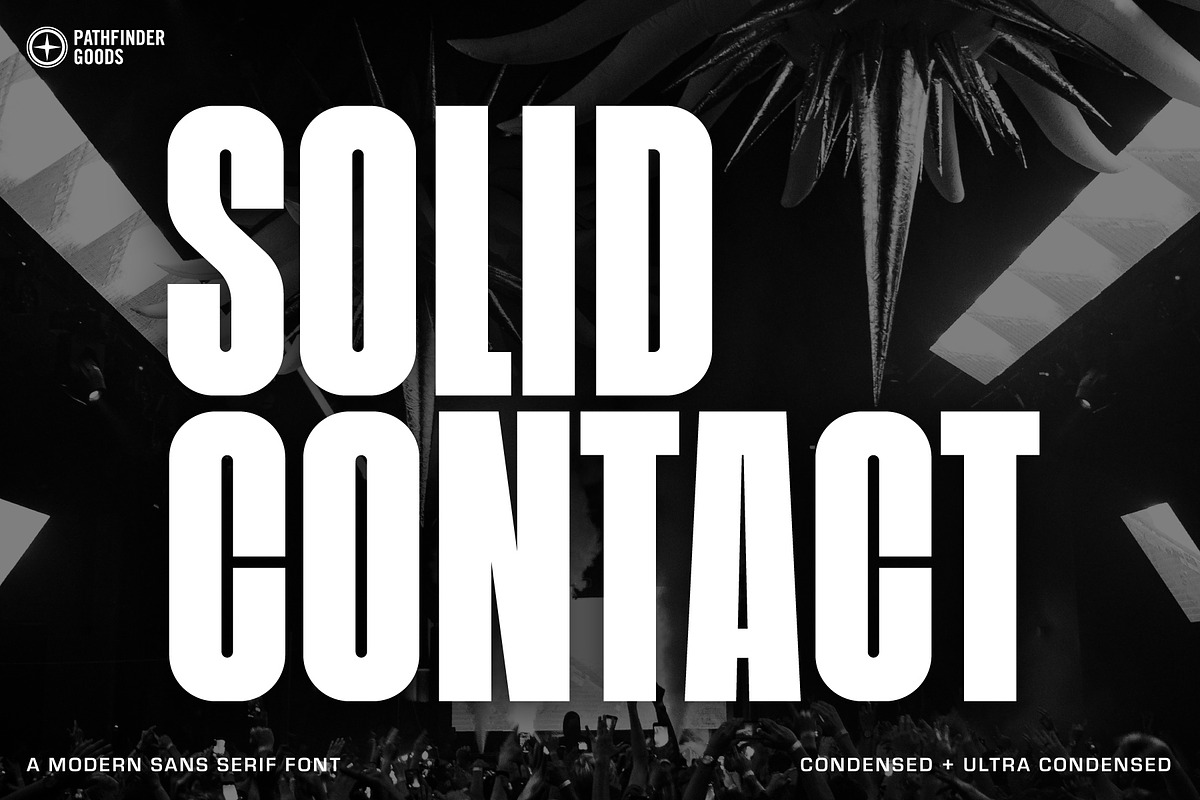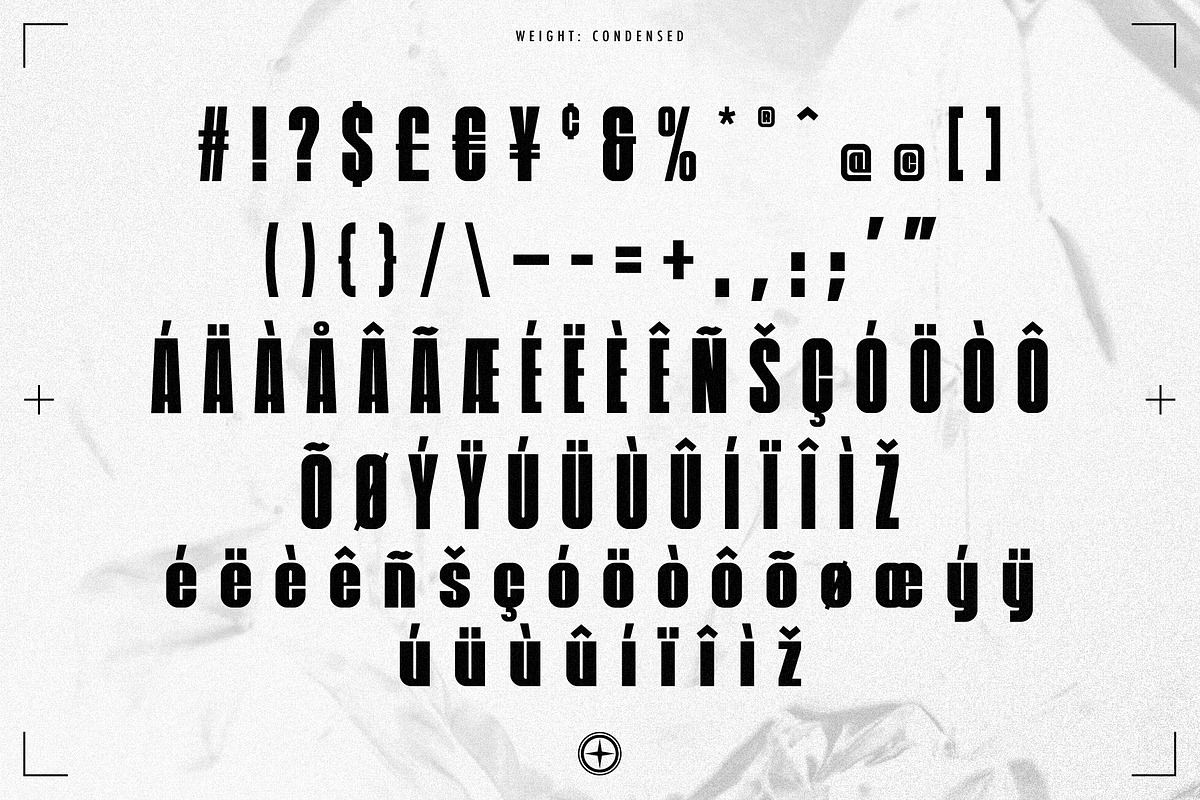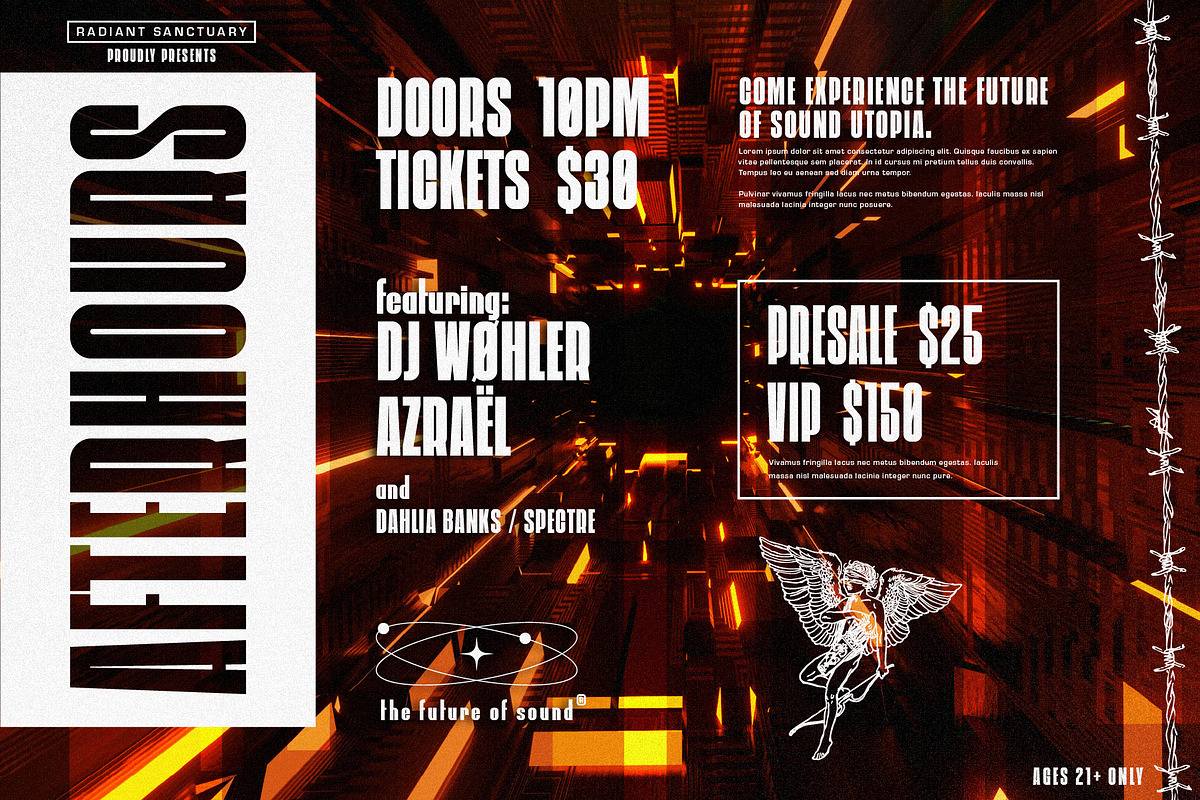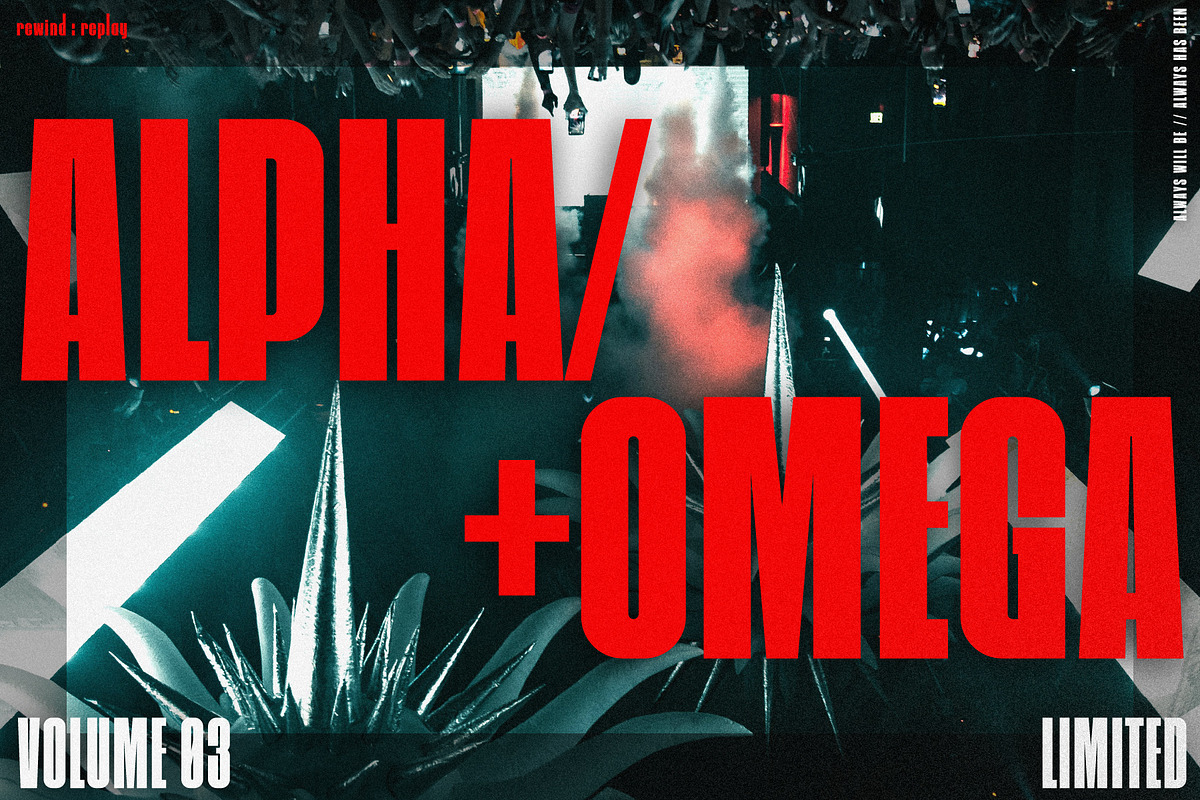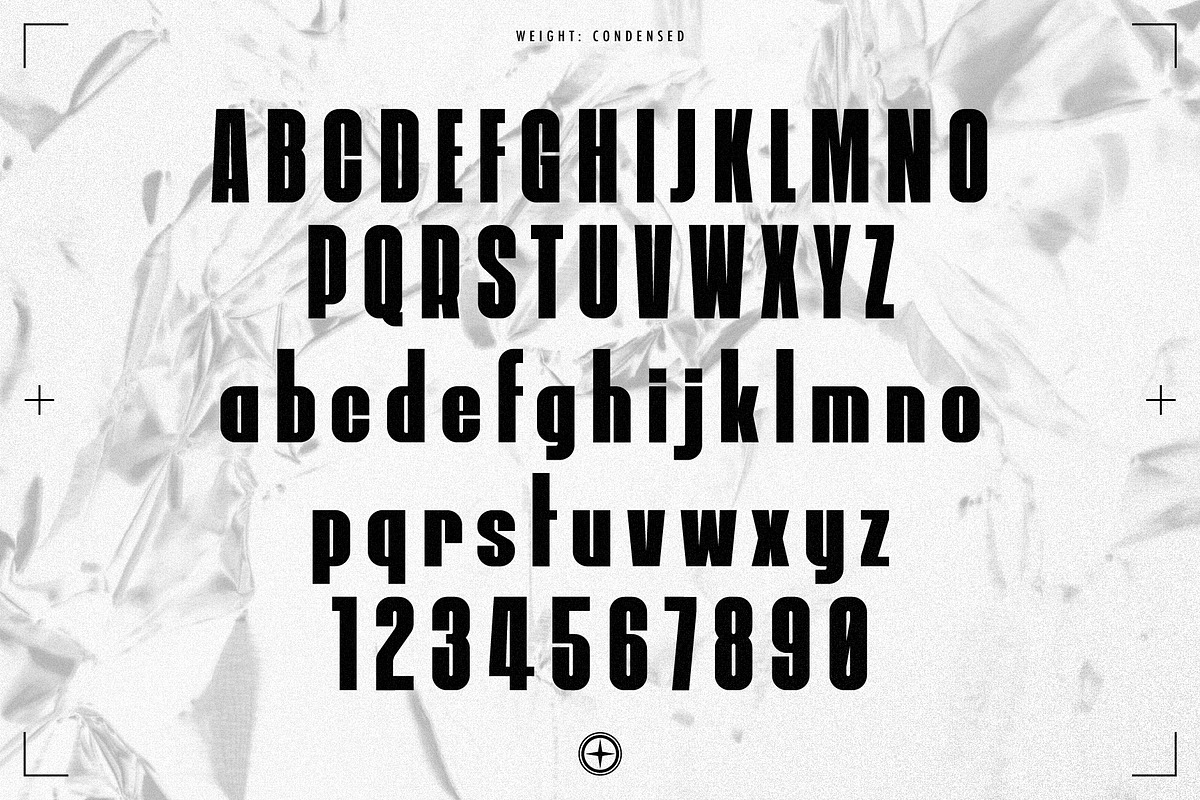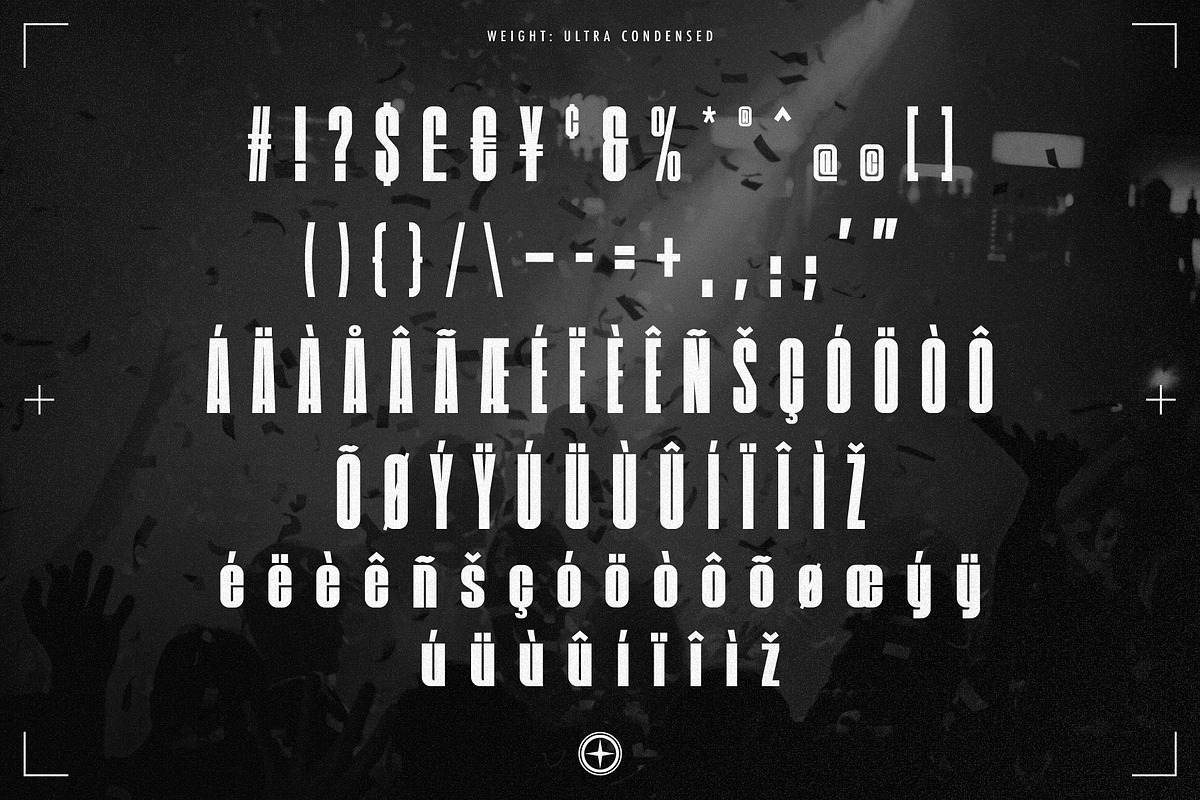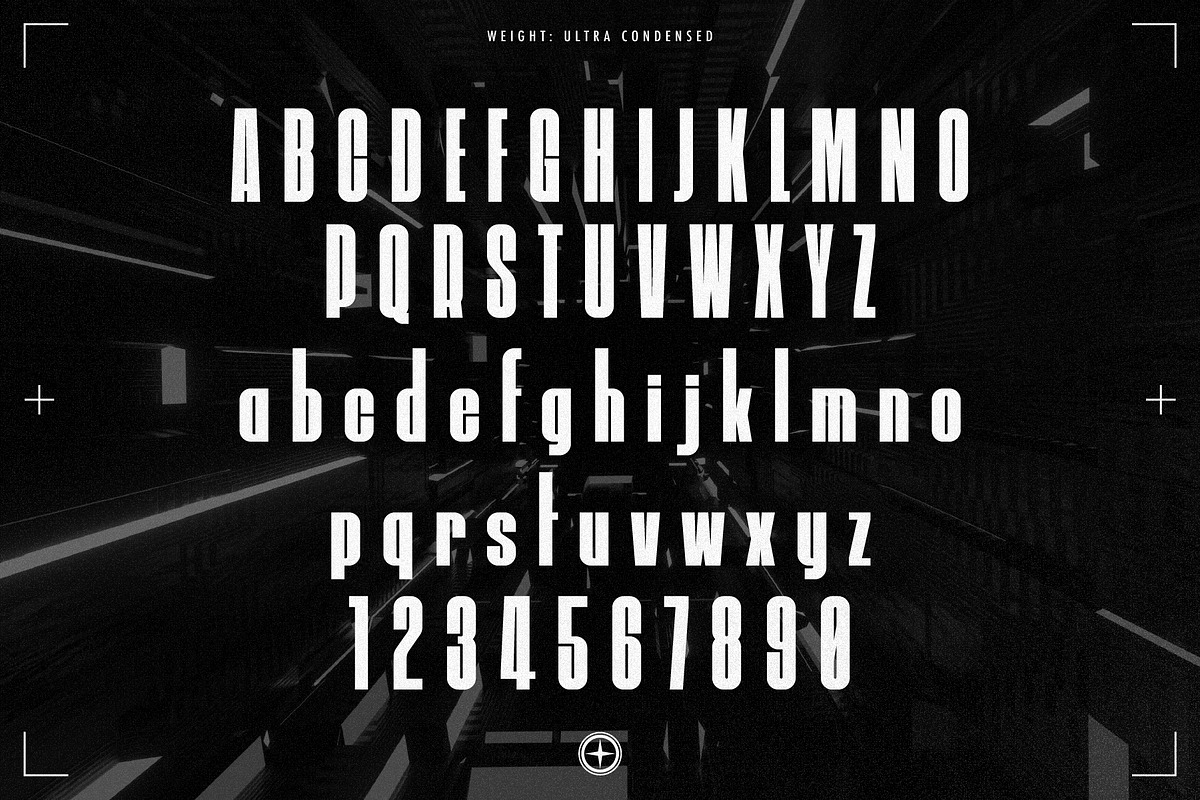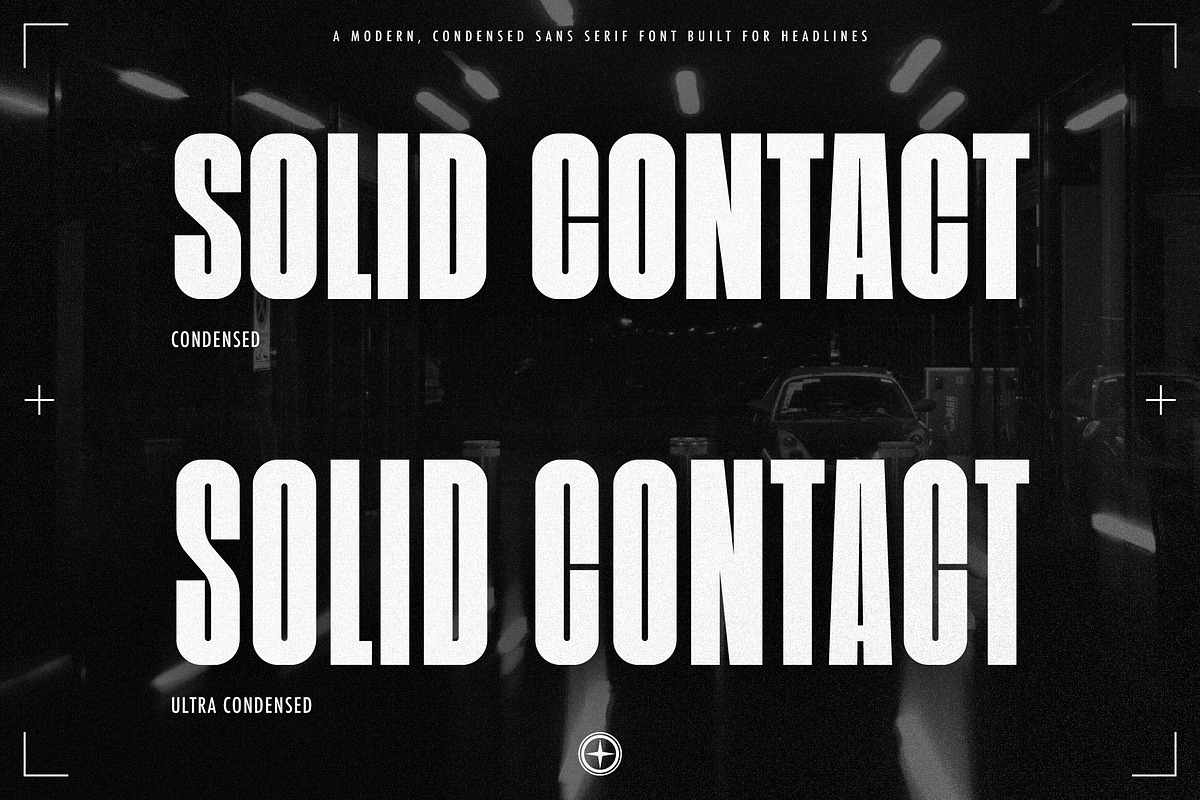
Solid Contact Condensed Sans Serif
Solid Contact – A modern, condensed sans serif font built for headlines. It includes:
Lowercase
Currency Symbols
Glyphs
Special Characters
This tall, sturdy, display font comes in 2 weights: Condensed and Ultra Condensed. It’s best used for headlines and vertical design applications. Although it’s dense and very tall, this bold headline font is easily legible even when small.